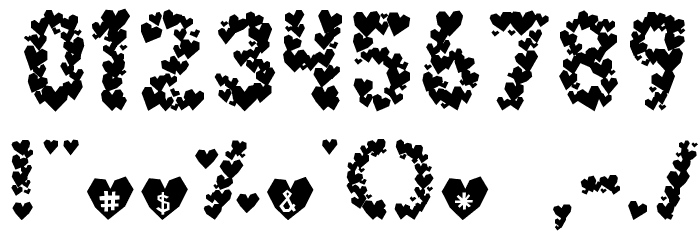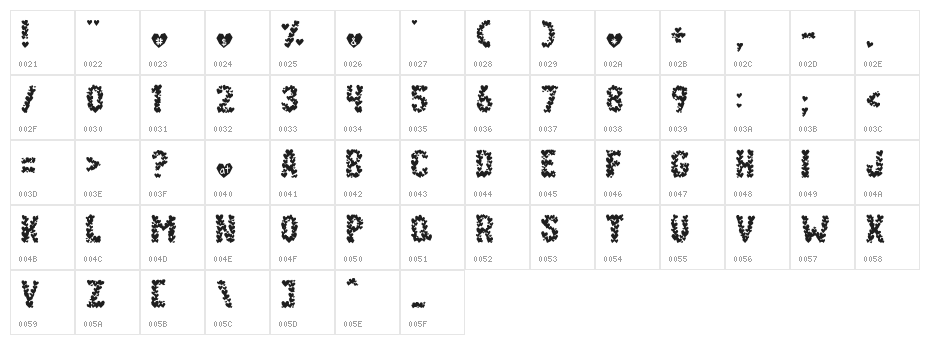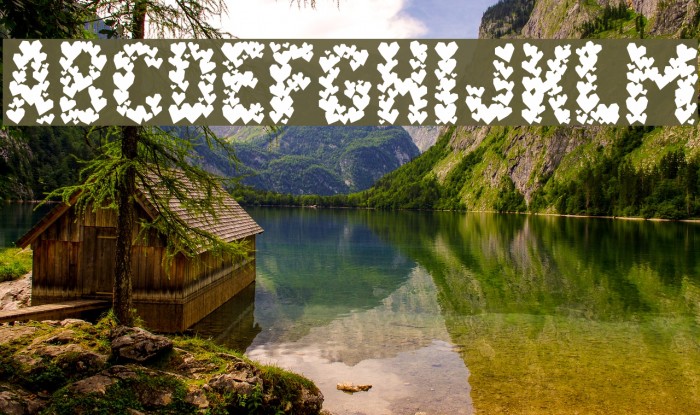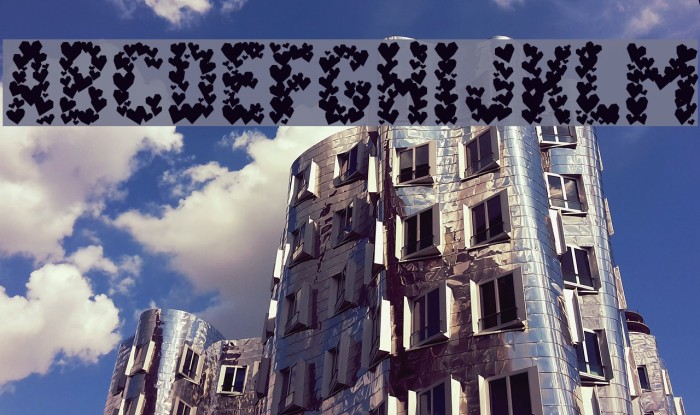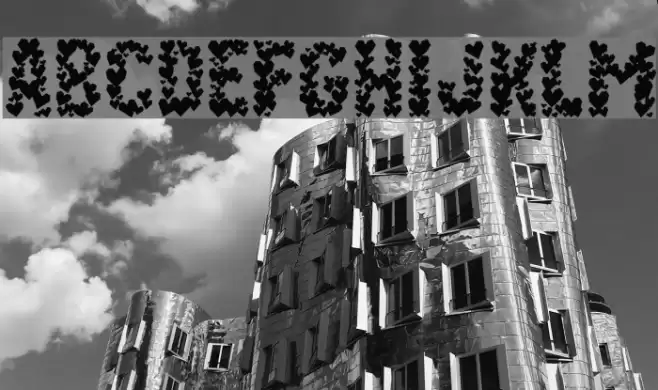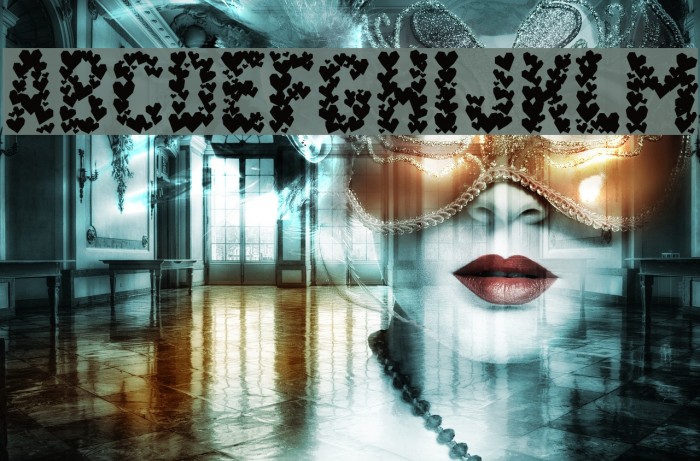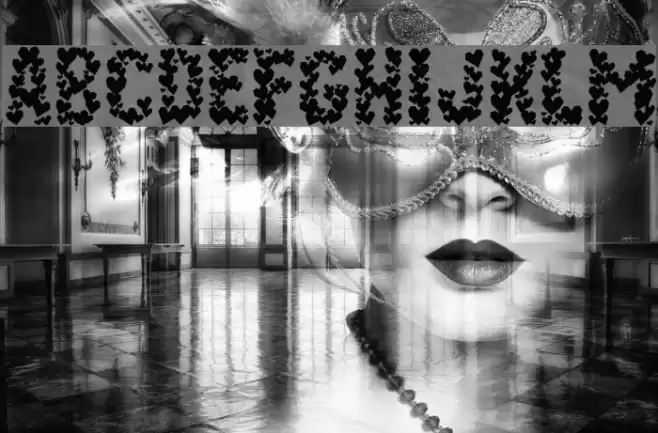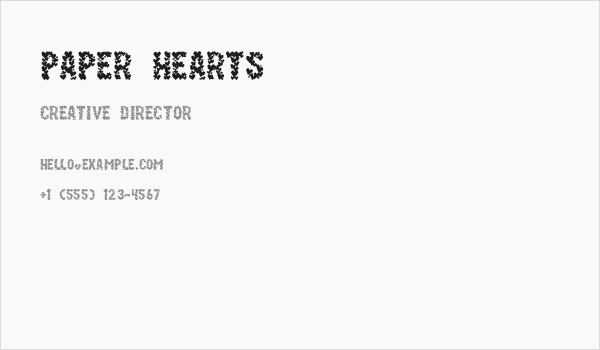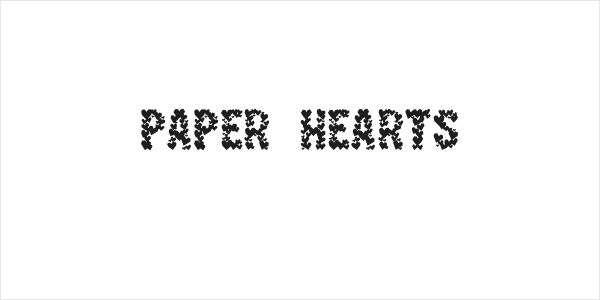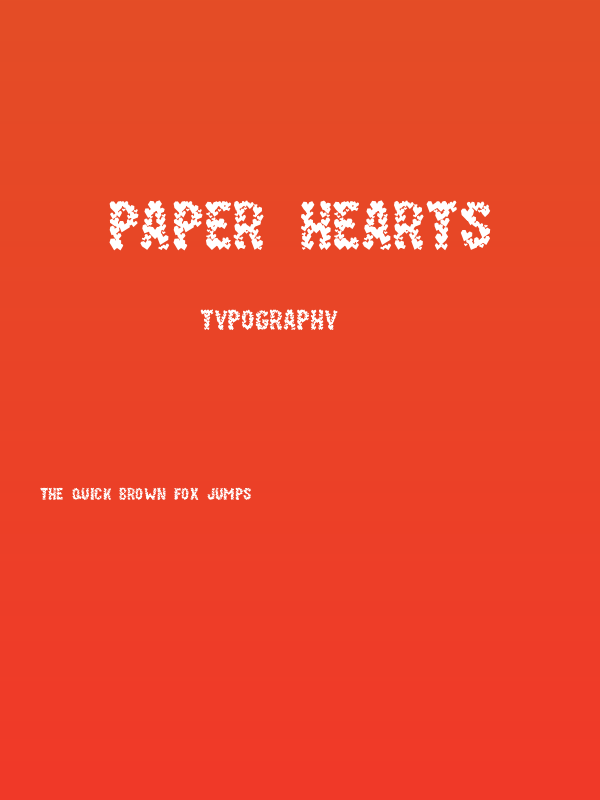
Paper Hearts Font
Paper Hearts Description
This font features a unique and playful design where each character is composed of small heart shapes, creating a whimsical and romantic aesthetic. The letters are bold and easily recognizable, with a consistent pattern of hearts that form the structure of each character. This design gives the font a textured appearance, making it stand out in any project. The font includes both uppercase and lowercase letters, numbers, and a selection of special characters, all maintaining the heart motif. Its decorative nature makes it ideal for projects that require a touch of charm and creativity.
| Proposed Projects | Ideal for Valentine's Day cards, wedding invitations, love-themed posters, and playful branding materials. |